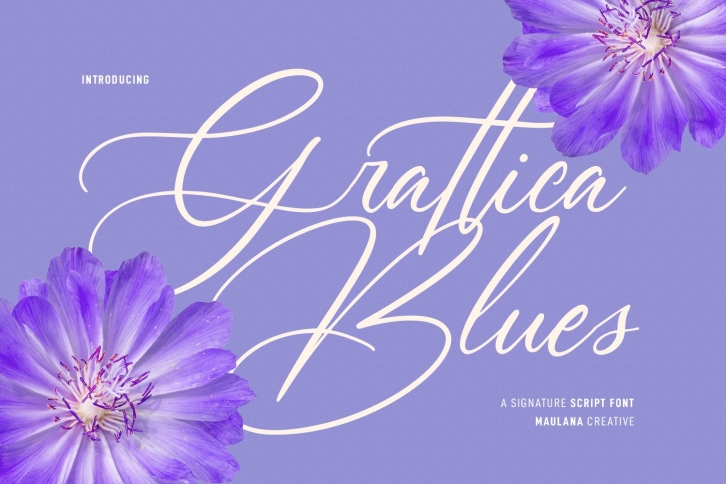
Grattica Blues Script is a gorgeous font that was realeased on June 23, 2022. The font can be used in many style contexts and design environments. Perfect for invitations, magazines, websites, logos, and more! It was designed by Maulana Creative and the file size is 7.77 MB. Thanks for checking out this font!